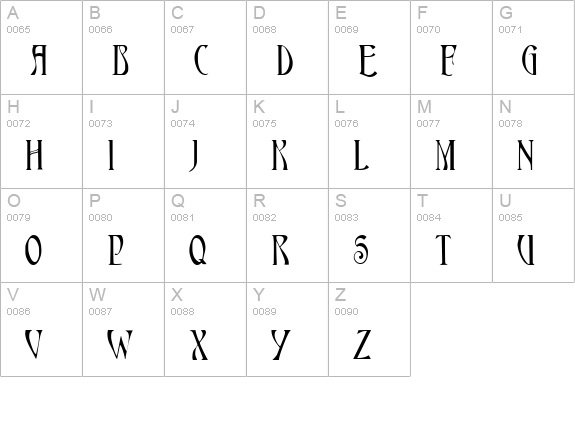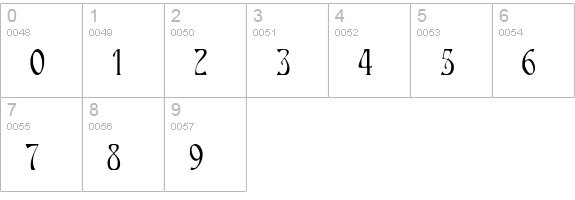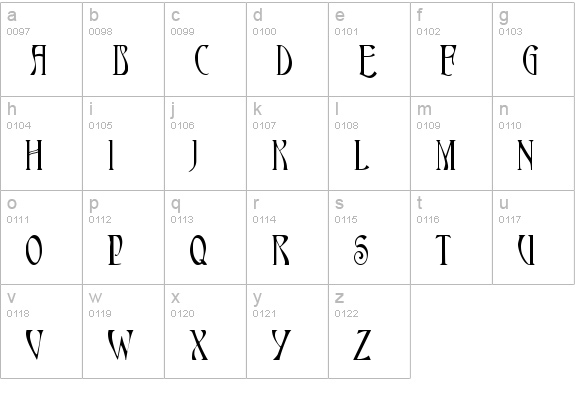
HardinCaps font is a remarkable typeface that exudes elegance and sophistication. With its clean lines and perfectly balanced curves, this font is perfect for adding a touch of refinement to any design project. Whether it's for a logo, a poster, or a website header, HardinCaps font will effortlessly elevate your design to new heights. What sets HardinCaps font apart is not only its stunning design, but also its accessibility. Unlike many other premium fonts, HardinCaps is completely free to download. That's right, you can get your hands on this exquisite typeface without spending a dime. It's a rare gem in the world of typography, where high-quality fonts often come with a hefty price tag. To get your hands on HardinCaps font, simply head over to FontsMarket.com. There, you will find a vast collection of fonts, including HardinCaps, all available for free download. FontsMarket.com is a trusted source for fonts, ensuring that you can download HardinCaps with ease and peace of mind. Once you have HardinCaps font in your design arsenal, the possibilities are endless. Its timeless appeal and versatility make it suitable for a wide range of applications. Whether you're designing a wedding invitation, a magazine layout, or a branding project, HardinCaps font will add a touch of class and sophistication. So why wait? Take advantage of this incredible offer and download HardinCaps font today. With its captivating design and its availability as a free download, HardinCaps is a font that will undoubtedly elevate your design projects to new levels of excellence. Don't miss out on this opportunity to enhance your creative endeavors – head over to FontsMarket.com and get your hands on HardinCaps font now.